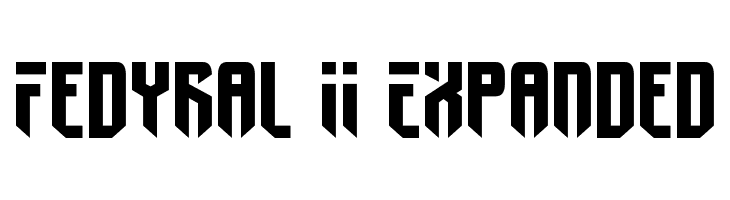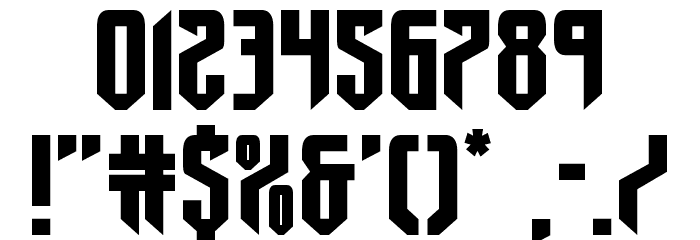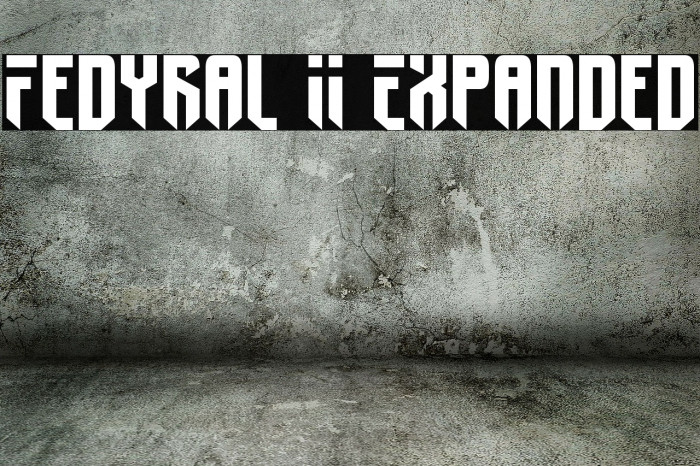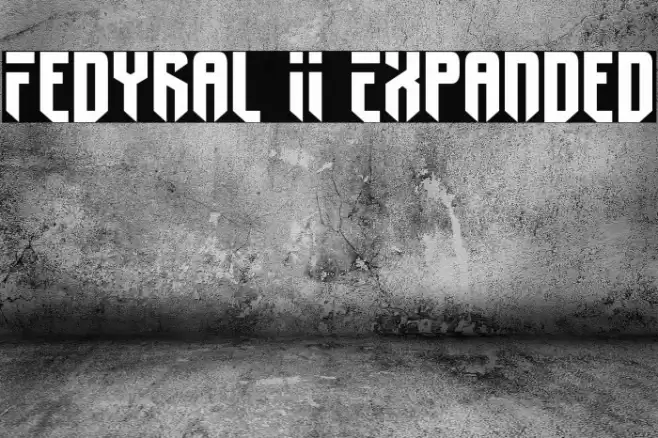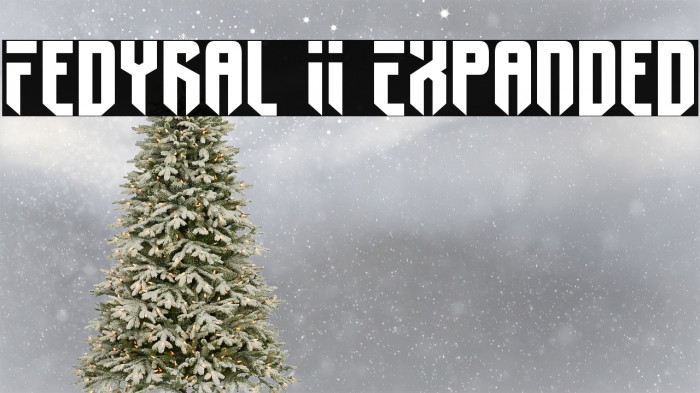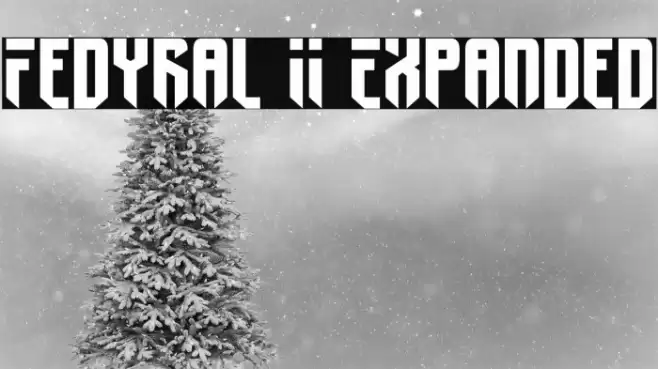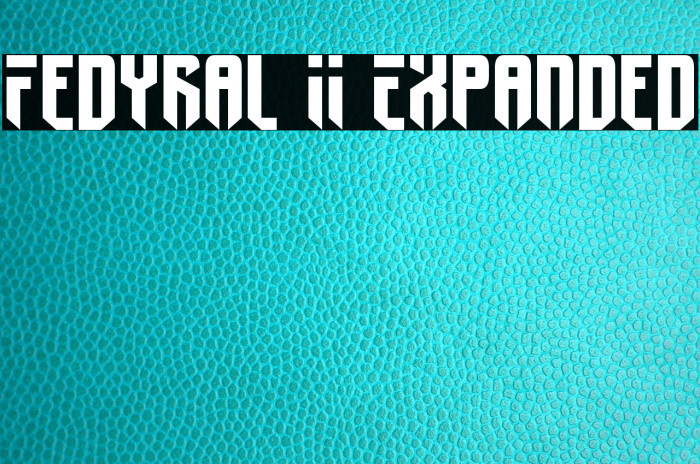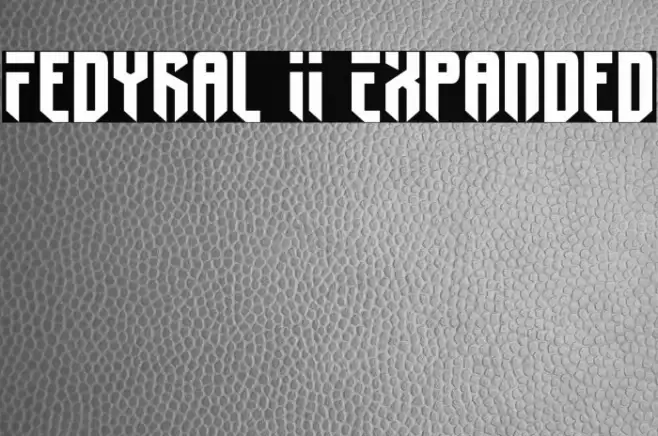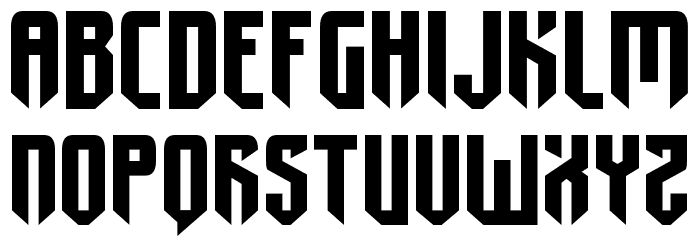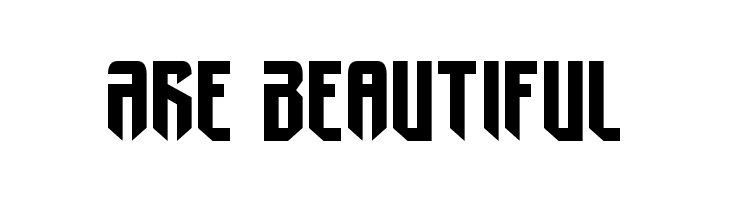
Fedyral II Expanded Font
Fedyral II Expanded Description
This font features a bold and geometric design with sharp angles and a futuristic aesthetic. The characters are constructed with a consistent width, giving them a monospaced appearance, yet they maintain a dynamic and striking presence. The uppercase letters are particularly distinctive, with angular cuts and a blocky structure that conveys strength and modernity. The numbers and special characters follow the same design principles, ensuring uniformity across all glyphs. This font's expanded width enhances its readability and makes it suitable for impactful headlines and titles.
A bold, geometric font with sharp angles and a futuristic style from Uncategorized fonts.
• Proposed Projects: Ideal for branding, posters, video game graphics, and any project requiring a modern, bold typeface.
• Overall Style: Modern
• Use Case: Headlines, Logos